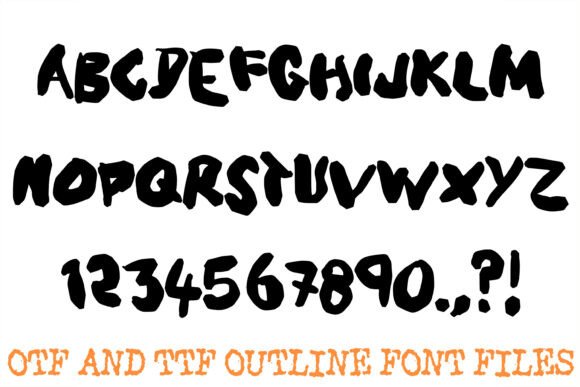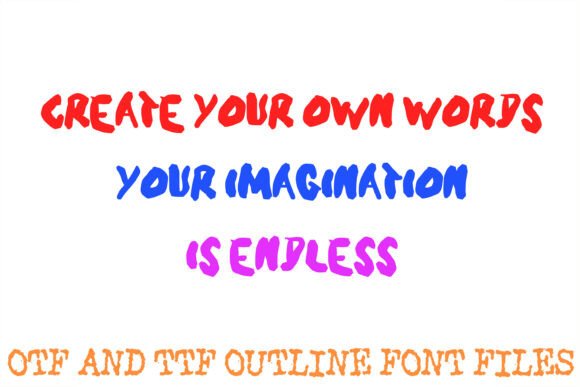
Introducing the Chunky Chips Font: A Playful and Energetic Display Typeface
Are you tired of using the same old fonts for your designs? Look no further! The Chunky Chips Font is a unique and eye-catching display typeface that is sure to add a touch of playfulness and energy to your projects. With its heavy, irregular block shapes and spirited, jagged outlines, this font is perfect for designers who want to create bold and attention-grabbing designs.
The Inspiration Behind the Chunky Chips Font
The Chunky Chips Font is inspired by the beauty of imperfection. Each character has its own unique, non-uniform angles that mimic broken cookie pieces or crunchy potato chips. This font celebrates the joy of hand-crafted designs, where each letter and symbol is carefully crafted to look like it was joyfully chopped or cut out by hand.
Perfect for Youth Branding and Quirky Designs
The Chunky Chips Font is an exceptional choice for designers crafting youth branding, quirky sticker sheets, comic book dialogue, and eye-catching packaging for snacks or candies. Its solid, high-visibility forms make it perfect for designs that need to stand out from the crowd. Whether you are building a bold identity for a kids’ brand or designing dynamic graphics for a fun social media campaign, this font brings a spunky, unpolished charm that breaks away from rigid geometry.
Key Features of the Chunky Chips Font
- Heavy, irregular block shapes: The Chunky Chips Font features heavy, irregular block shapes that give it a unique and playful look.
- Spirited, jagged outlines: The font’s spirited, jagged outlines add to its energetic and playful feel.
- Solid, high-visibility forms: The font’s solid, high-visibility forms make it perfect for designs that need to stand out.
- Unique, non-uniform angles: Each character has its own unique, non-uniform angles that mimic broken cookie pieces or crunchy potato chips.
Uses for the Chunky Chips Font
The Chunky Chips Font is versatile and can be used for a variety of design projects, including:
- Youth branding: The font’s playful and energetic feel makes it perfect for designing bold identities for kids’ brands.
- Quirky sticker sheets: The font’s unique and eye-catching design makes it perfect for creating quirky sticker sheets.
- Comic book dialogue: The font’s bold and playful feel makes it perfect for use in comic book dialogue.
- Eye-catching packaging: The font’s solid, high-visibility forms make it perfect for designing eye-catching packaging for snacks or candies.
- Social media campaigns: The font’s playful and energetic feel makes it perfect for designing dynamic graphics for fun social media campaigns.
Tips for Using the Chunky Chips Font
Here are a few tips for using the Chunky Chips Font:
- Use it sparingly: The Chunky Chips Font is a bold and attention-grabbing font, so use it sparingly to avoid overwhelming your design.
- Pair it with a simple font: Pair the Chunky Chips Font with a simple font to create contrast and add visual interest to your design.
- Experiment with colors: The Chunky Chips Font looks great in bold and bright colors, so don’t be afraid to experiment with different colors.
The Chunky Chips Font is a unique and eye-catching display typeface that is perfect for designers who want to add a touch of playfulness and energy to their designs. With its heavy, irregular block shapes and spirited, jagged outlines, this font is sure to stand out from the crowd. Whether you are building a bold identity for a kids’ brand or designing dynamic graphics for a fun social media campaign, the Chunky Chips Font is an exceptional choice.